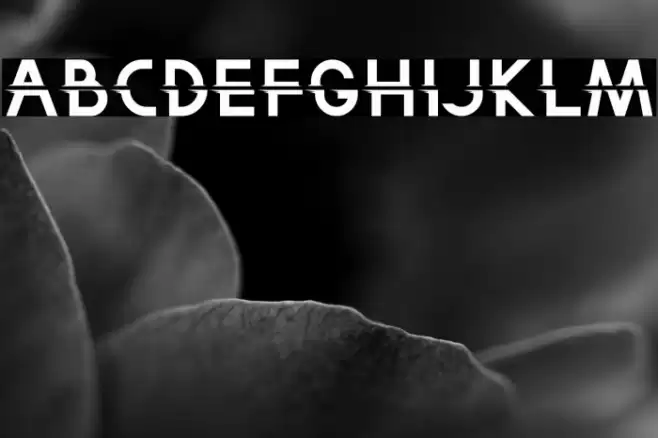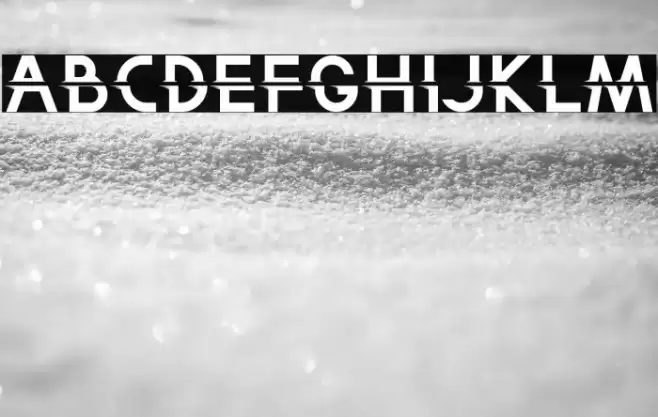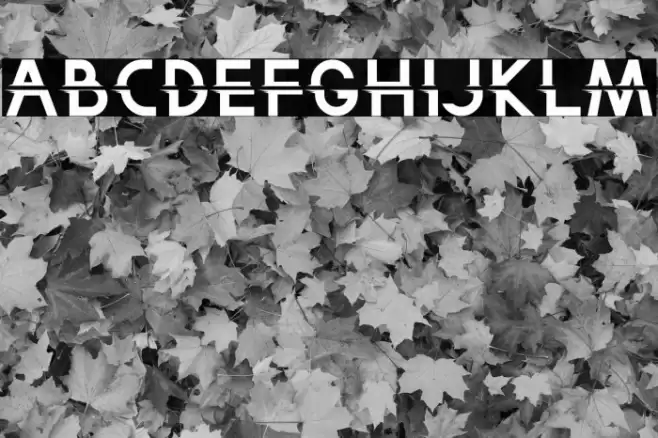
Split On Font
Split On Description
This font features a bold, modern design with a distinctive split effect across each character, creating a dynamic and eye-catching appearance. The uppercase and lowercase letters are consistent in style, with a clean, sans-serif structure that emphasizes clarity and readability. The numbers and special characters maintain this split design, adding a unique twist to traditional typography. The font's boldness and high contrast make it suitable for impactful visual statements, while the split effect adds a layer of intrigue and complexity.
A bold, modern sans-serif font with a unique split effect across characters from Uncategorized fonts.
- Proposed Projects: Ideal for branding, advertising, and poster design where a striking and modern aesthetic is desired.